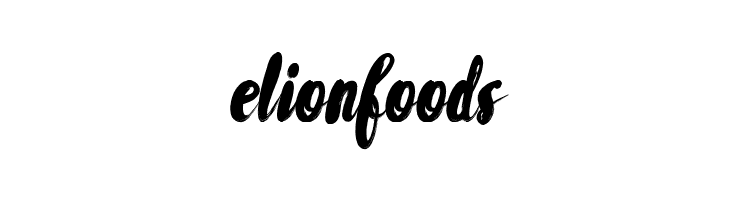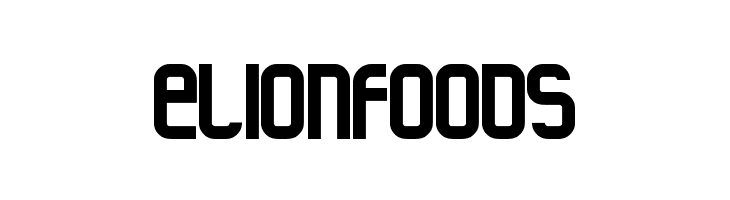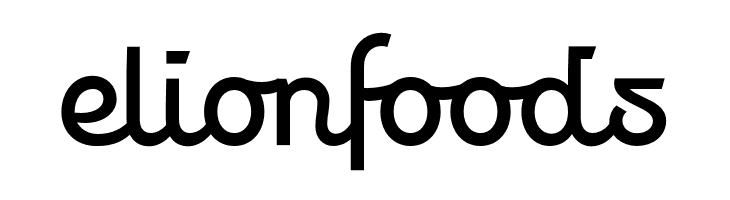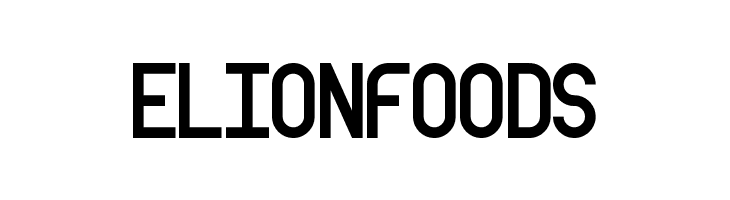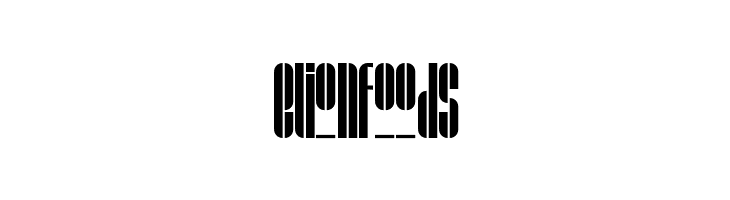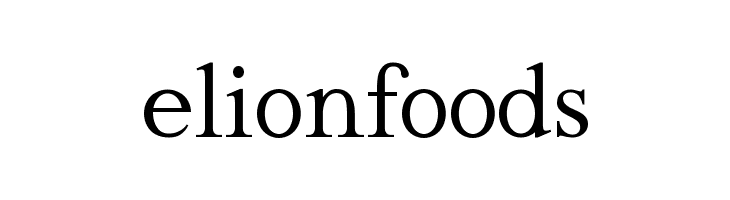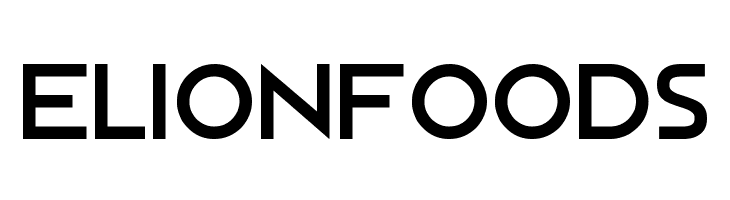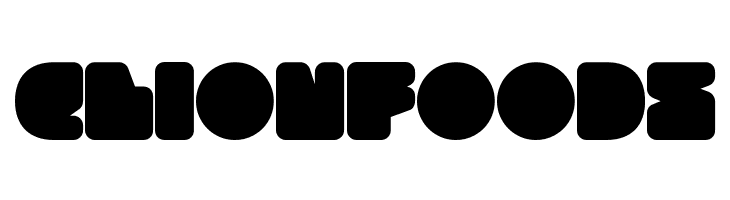
A bold, expressive script font with a hand-painted, brush-like appearance.
A bold, fluid font with a rock-inspired, dynamic style.
A playful and whimsical font with bold strokes and decorative elements.
A bold, geometric font with a triangular mesh pattern, ideal for decorative use.
A bold, modern typeface with rounded edges and geometric structure.
A bold, expressive script font with calligraphic flair and flowing strokes.
A bold, geometric font with a condensed and modern style.
A classic serif typeface with balanced elegance and moderate contrast.
A bold, geometric font with a modern and industrial aesthetic.
A bold, geometric font with rounded edges and a playful, modern aesthetic.